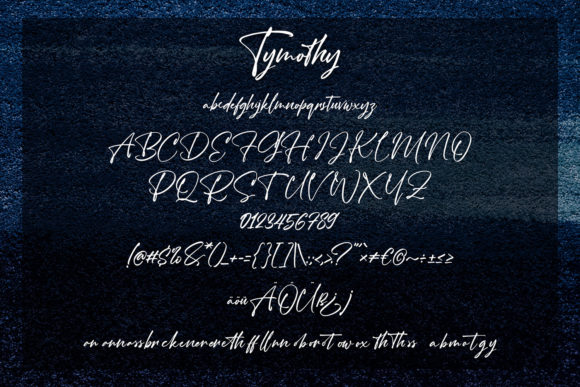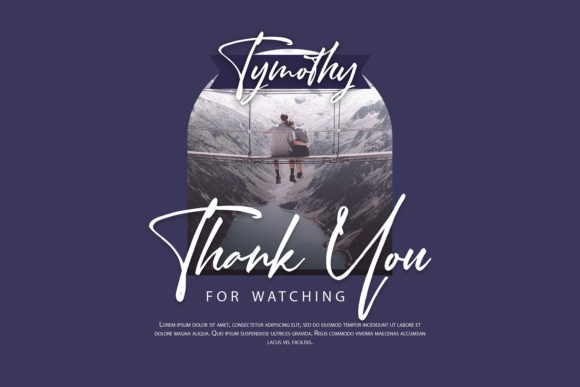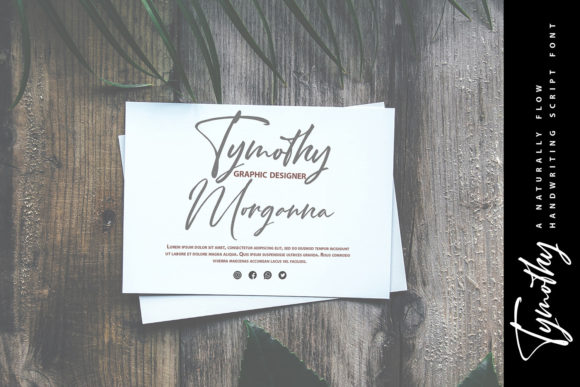
Tymothy Font
About Tymothy Font
Tymothy is a handwritten font that flows naturally and casually. It will look beautiful on wedding invitations, greeting cards, branding materials, business cards, quotes, posters, and many more!